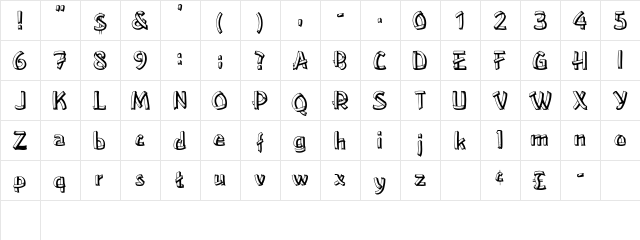
RAYLENE Regular
Design Context for RAYLENE Typeface
RAYLENE is a composed and adaptable typeface that performs quietly and consistently across a wide range of design contexts.